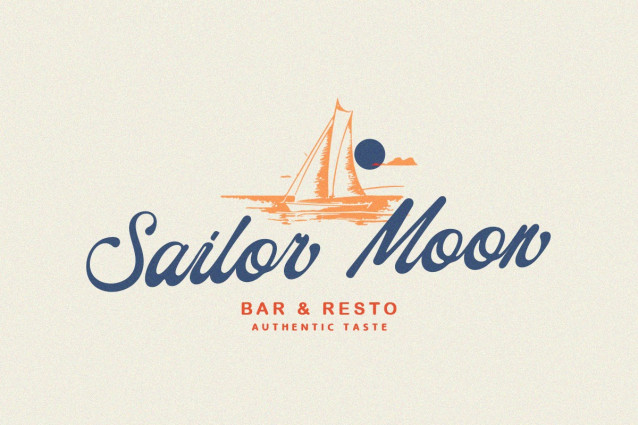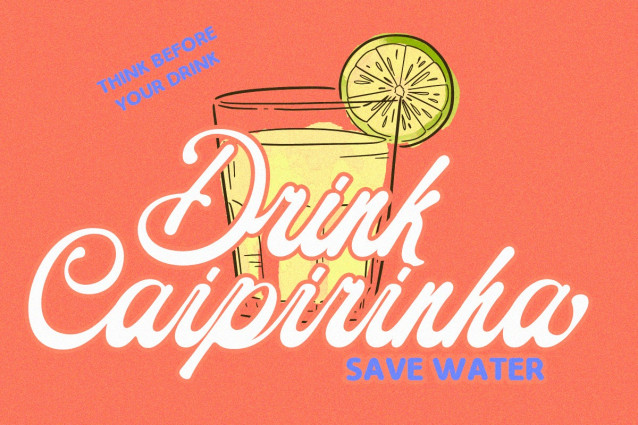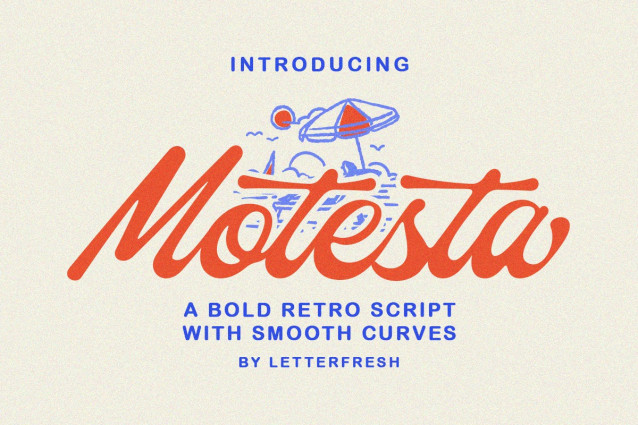
Motesta Script Font
Motesta Script Font – Inspired by Modern Vintage & Retro styles and a combination with old American traditional style. Motesta Script allows you to create handwritten letters instantly and very practical. Ideal for logos, handwritten quotes, product packaging, headers, posters, merchandise, social media & greeting cards.